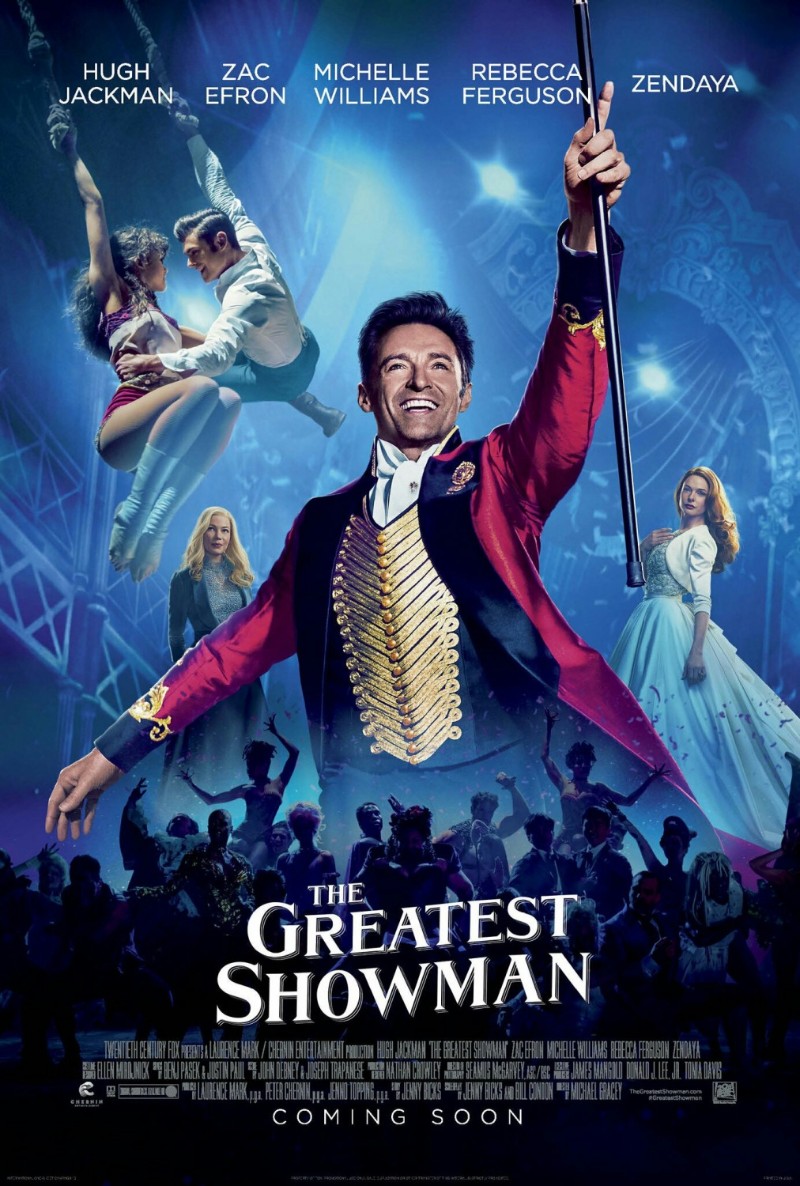
The Greatest Showman Font
Fonts in UseThe Greatest Showman is a 2017 musical film inspired by the life of P.T. Barnum and the creation of the Barnum & Bailey Circus. It stars Hugh Jackman, Zac Efron, and Zendaya, and features original music by Benj Pasek and Justin Paul.
While we couldn't locate an exact match for the font used in the film title, it appears to have been either custom designed or heavily modified. However, the lettering bears a strong resemblance to Dragon EF Italic. There's also a freeware font named The Greatest that imitates the lettering and is likely based on this font.